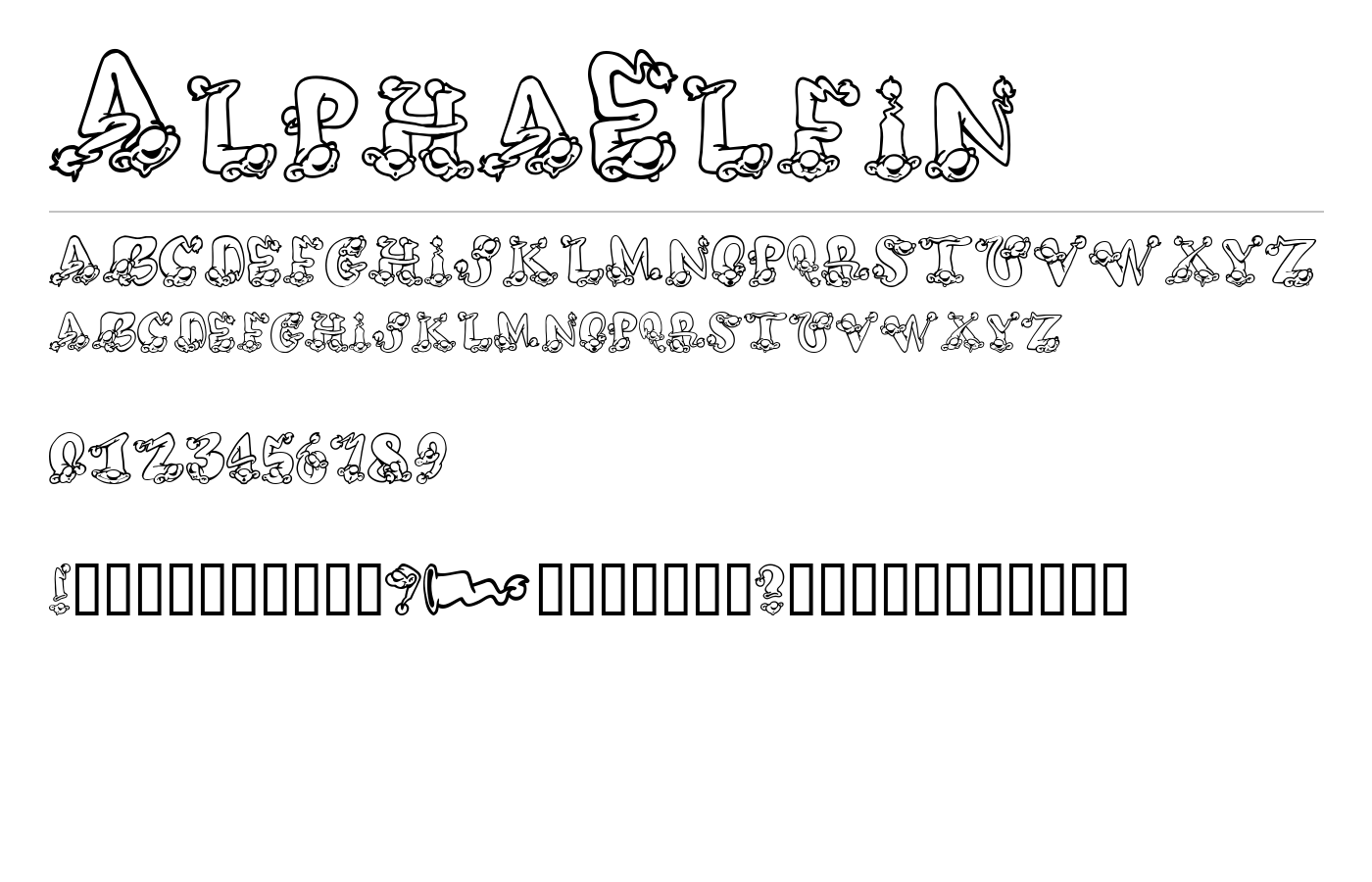
AlphaElfin is a whimsical, decorative font featuring playful, curvy letterforms adorned with floral-like embellishments. Its light weight and airy style make it ideal for creative, fantasy-themed projects, logos, and invitations where a magical, charming mood is desired. This font shines in display use, adding a unique, artistic touch to headlines and decorative accents.
AlphaElfin Font